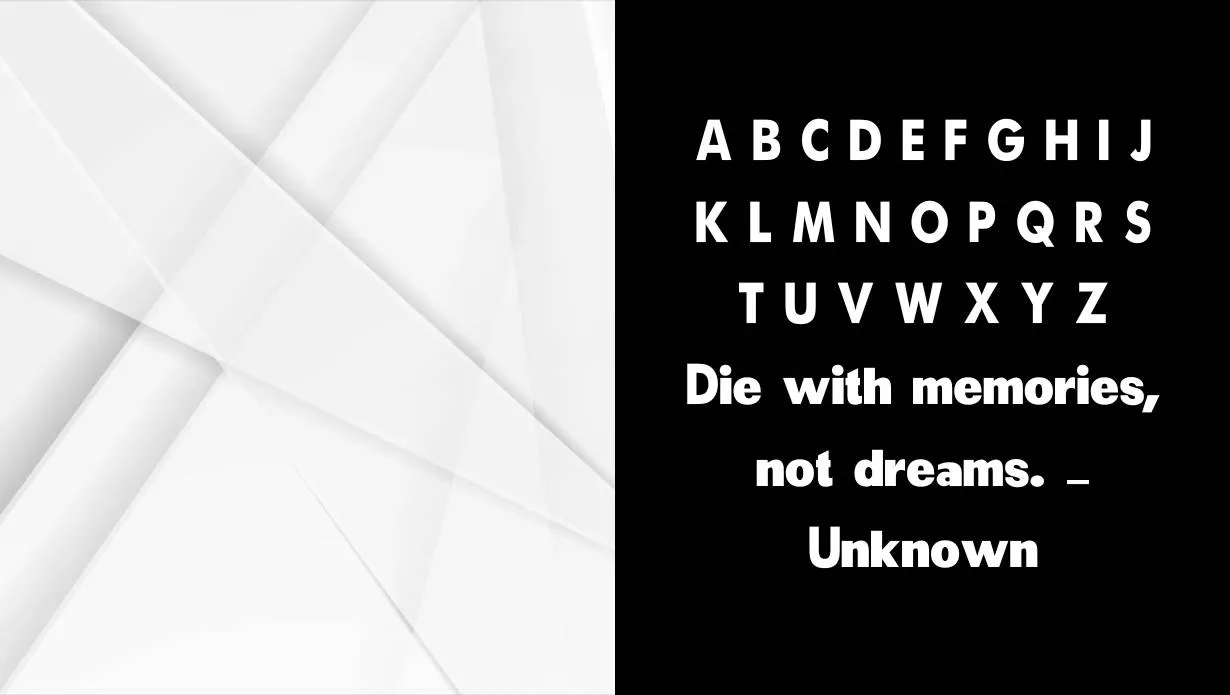
The Parker Brothers font embodies the fun spirit of family games. Its friendly, rounded design makes it ideal for creating welcoming board game logos, cheerful product labels, or adding a nostalgic flair to your branding.
This font has a medium weight and standard width, ensuring your words look playful and approachable. Picture using the Parker Brothers font for a board game store sign, turning your text into a warm invitation to fun.
| Name | Parker Brothers Font |
| Designer | Edward Benguiat |